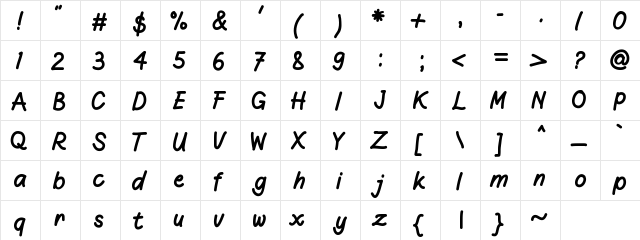
Lokananta Medium
Design Context for Lokananta Typeface
Lokananta takes a measured approach to typography — its balanced proportions and neutral character make it a reliable workhorse for both digital and print work.